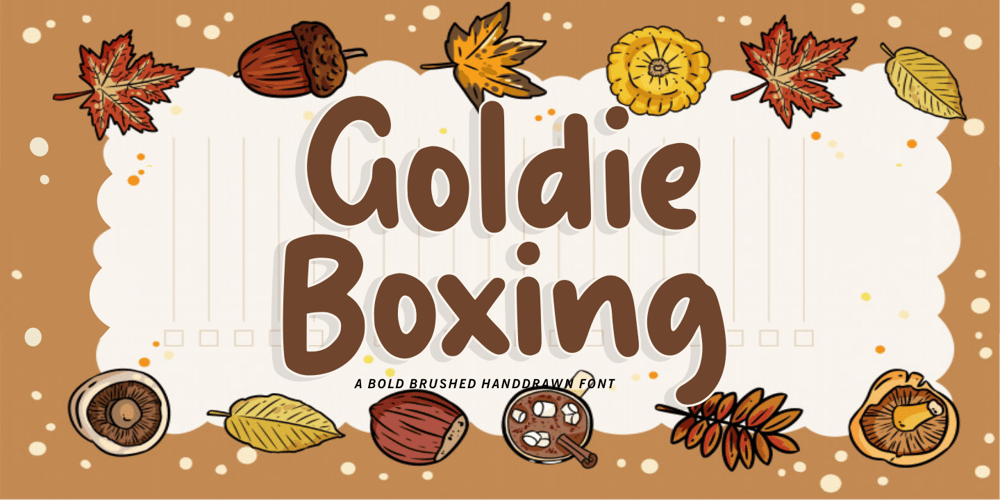
Goldie Boxing Font Family was designed by Restu Angga and published by Balpirick. Goldie Boxing contains 1 styles and family package options. Goldie Boxing is a Bold Brushed Handdrawn Font.Goldie Boxing is a bold display font with an autumn theme. Add this chunky lettered font to your designs and notice how it makes them come alive!Goldie Boxing also multilingual support.Enjoy the font, feel free to comment or feedback, send me PM or email.Thank you!